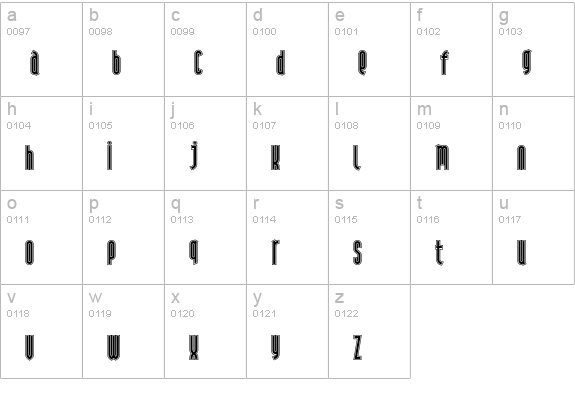
AndironOutline Font Details
AndironOutline font is a stylish and modern typeface that exudes elegance and sophistication. With its clean lines and crisp edges, this font is perfect for a wide range of design projects, from logos to invitations to branding materials. The outlined design adds a unique touch to any text, making it stand out and capture attention. The best part about AndironOutline font is that it is completely free to download at FontsMarket.com. You can easily access this beautiful font and use it in your projects without any cost. Whether you're a designer looking for a fresh new font or someone who simply appreciates quality typography, AndironOutline is a fantastic choice that will elevate your designs to the next level. Download it today and enhance your creative work with this stunning typeface.